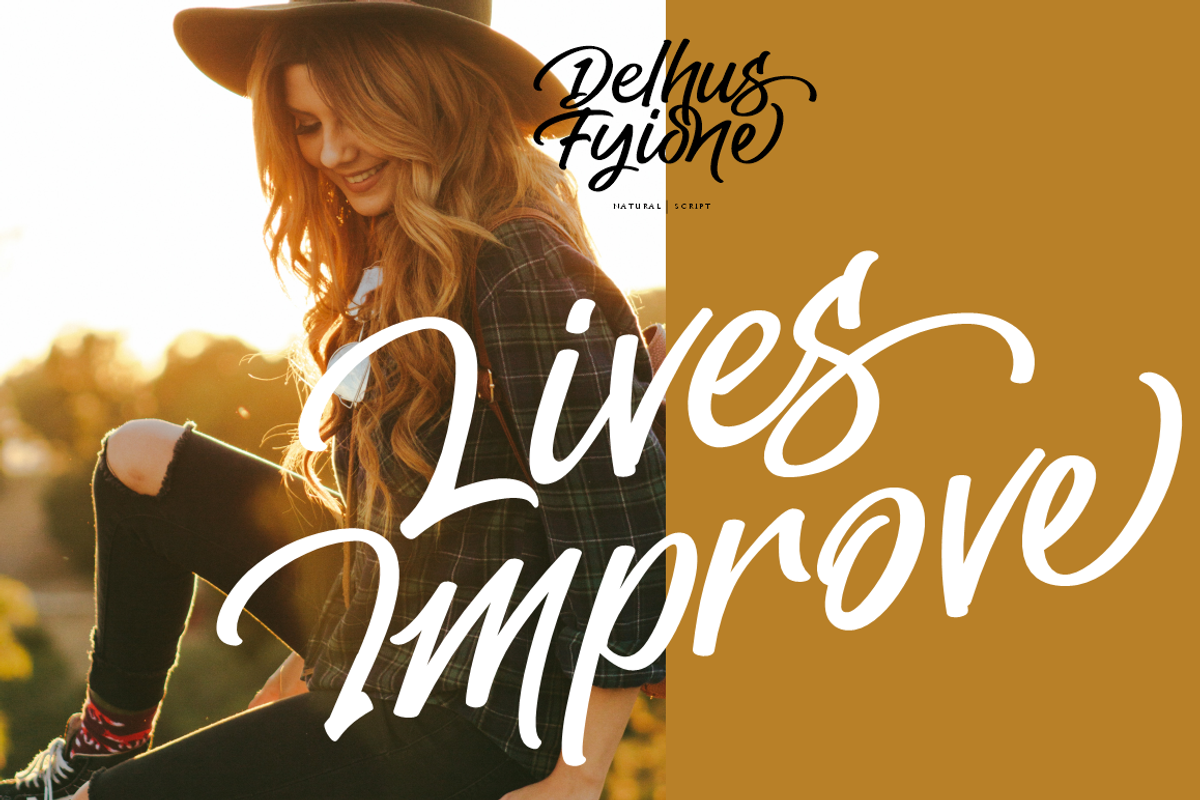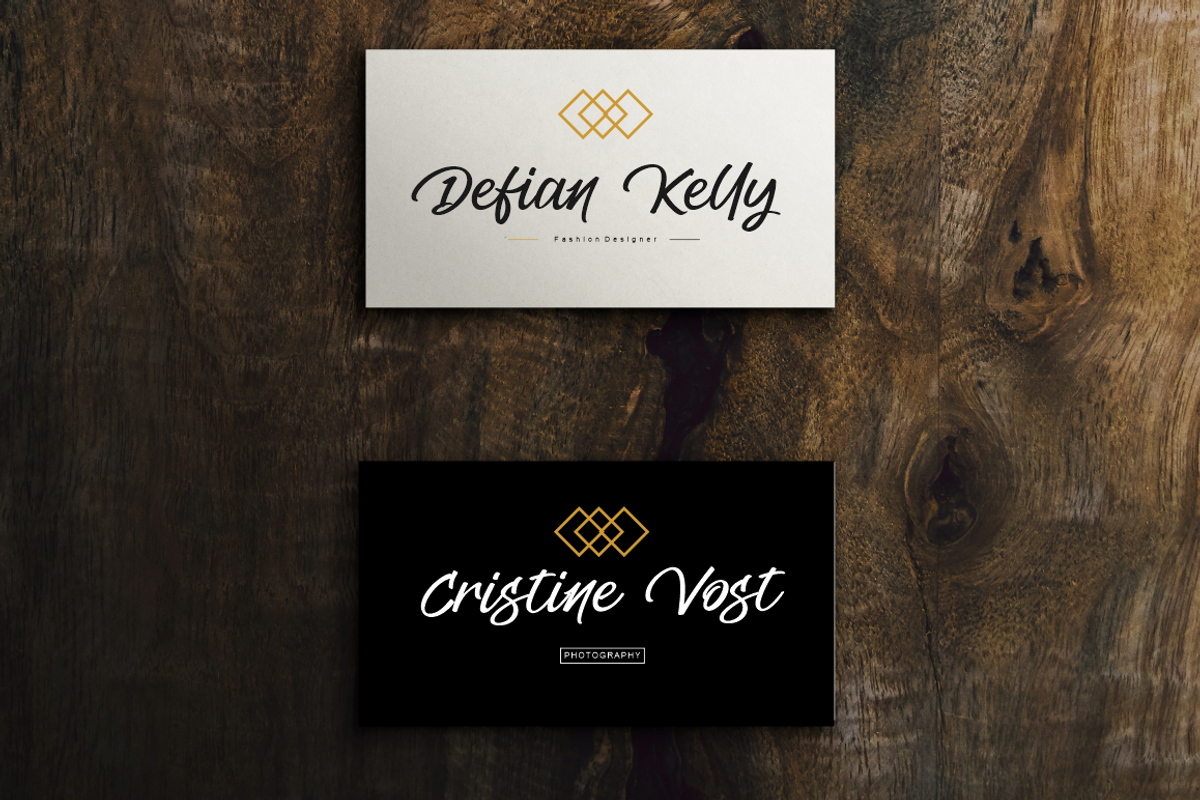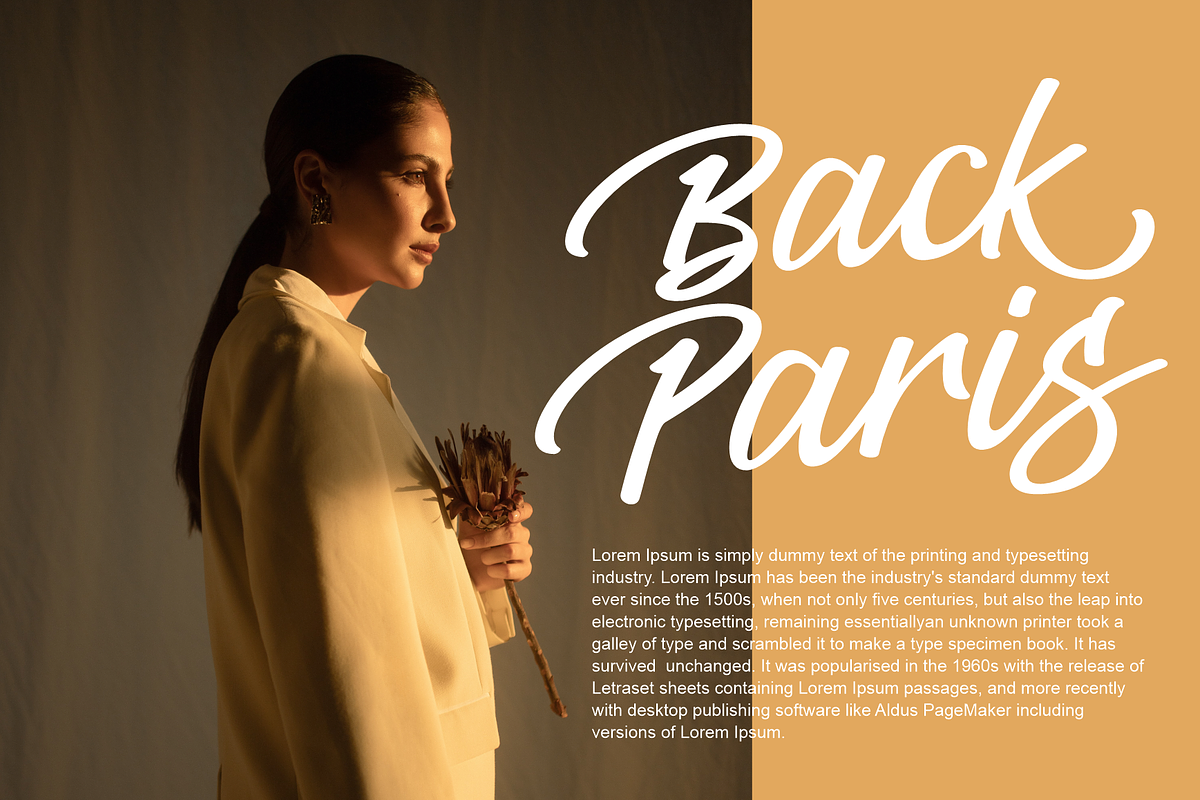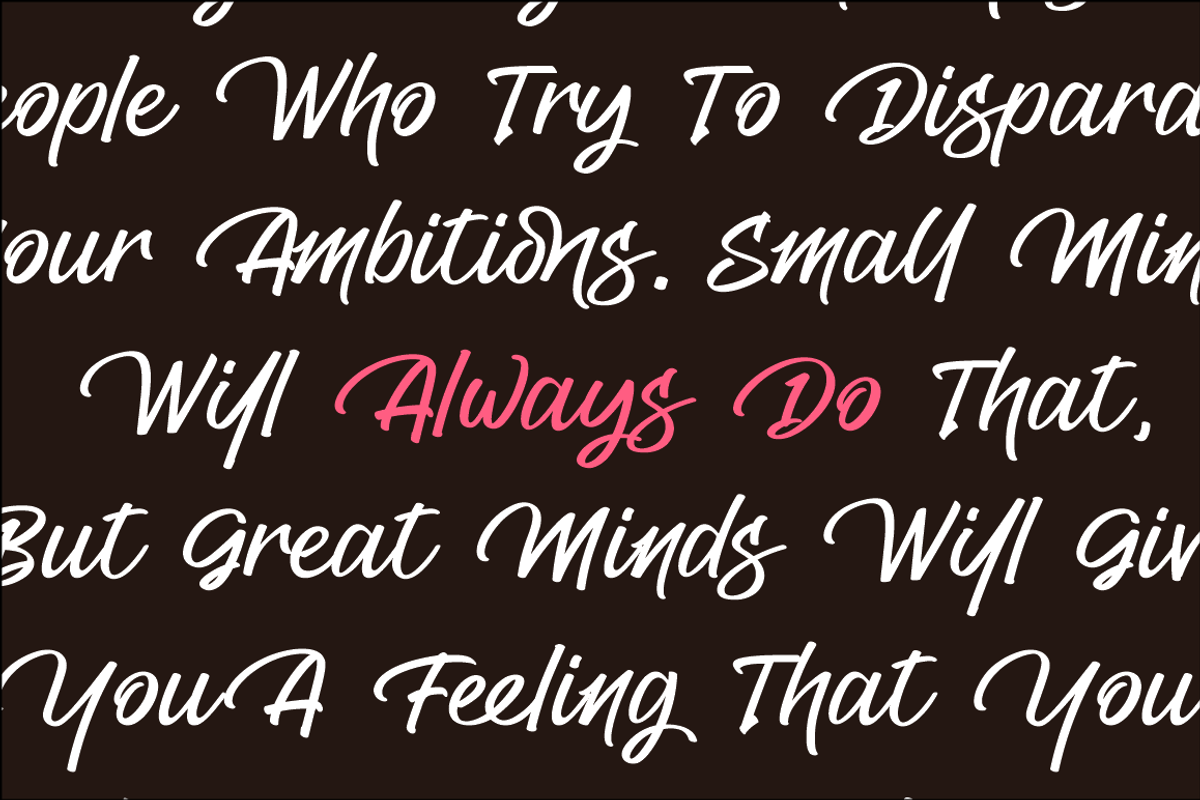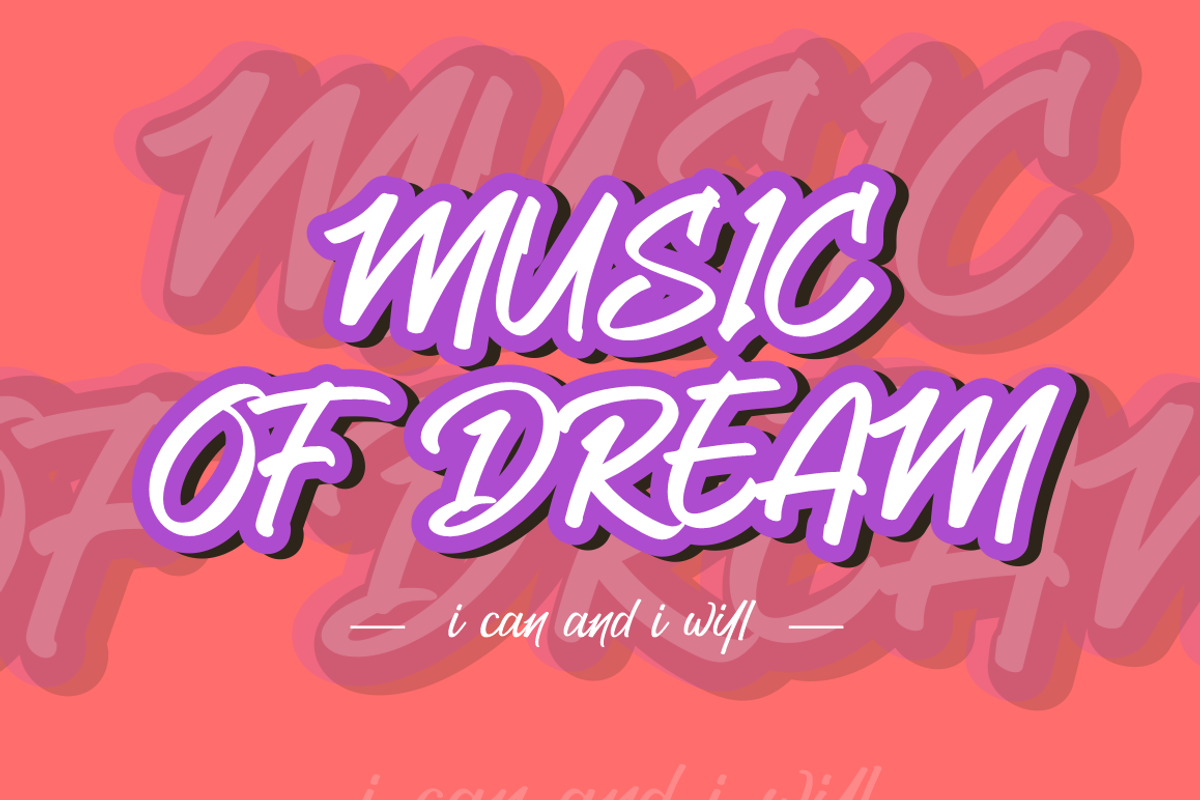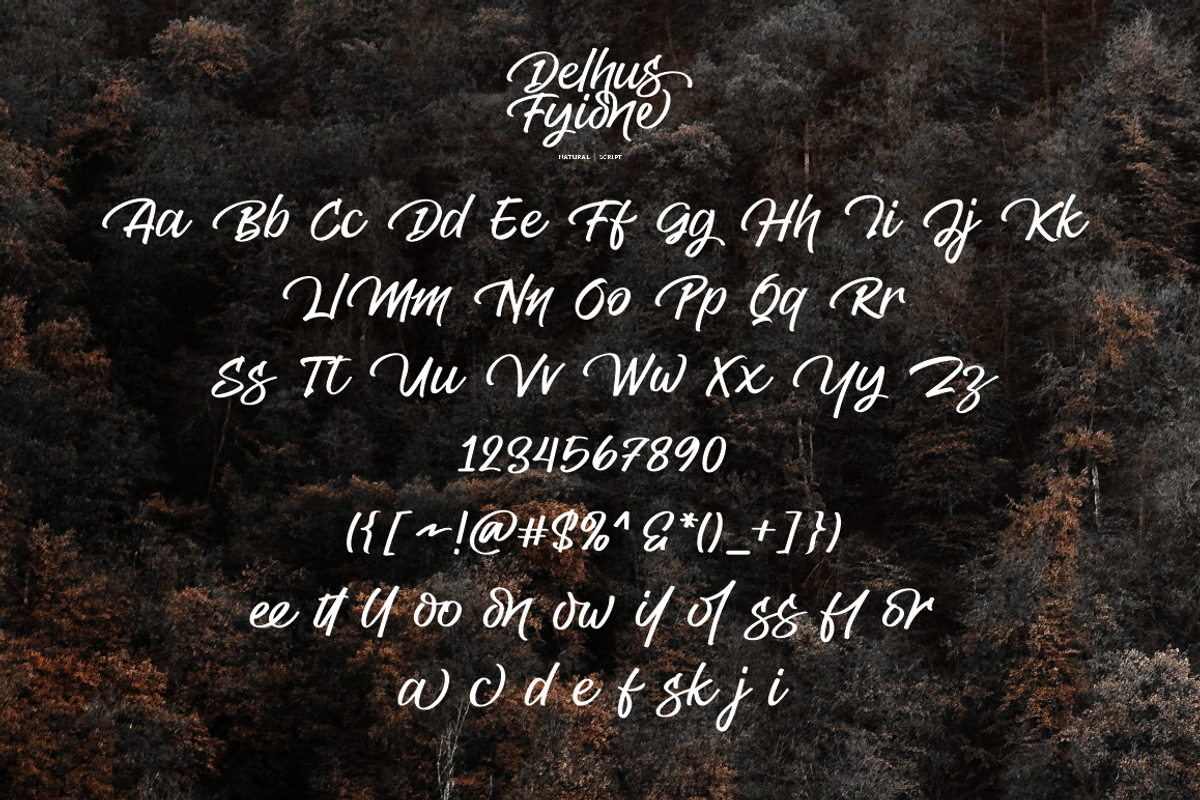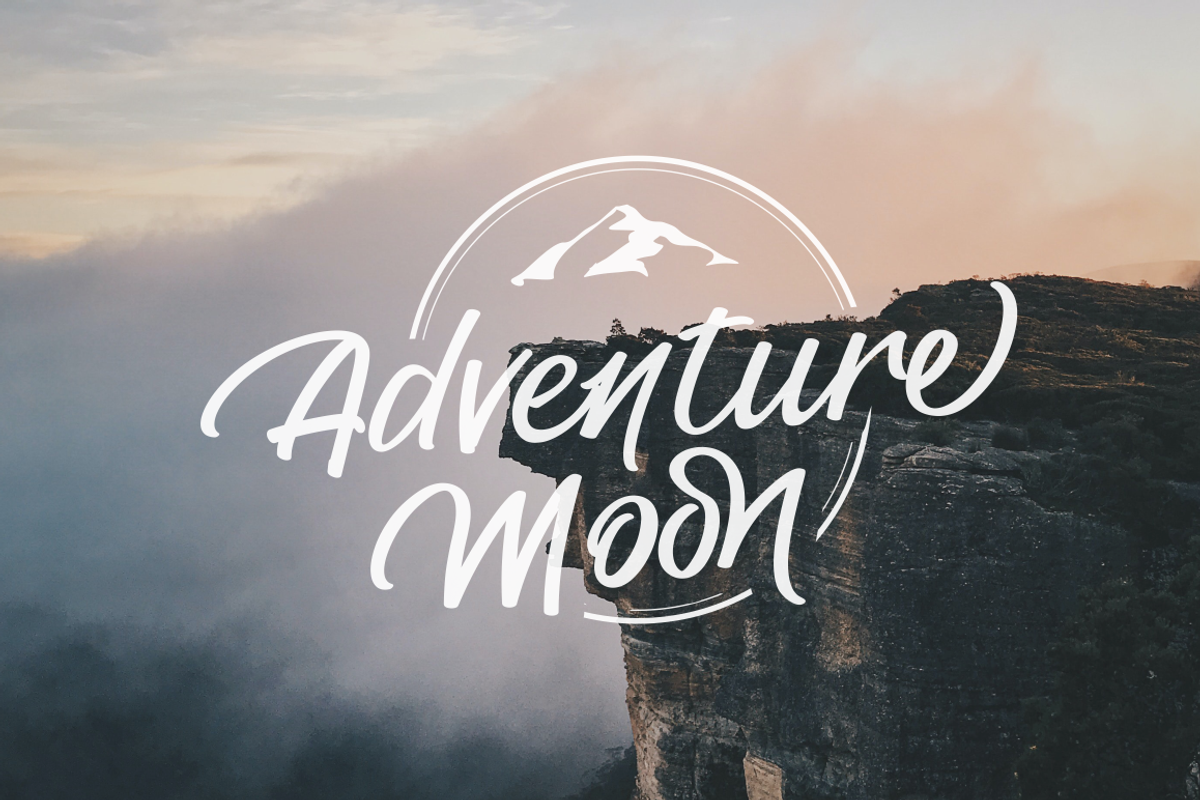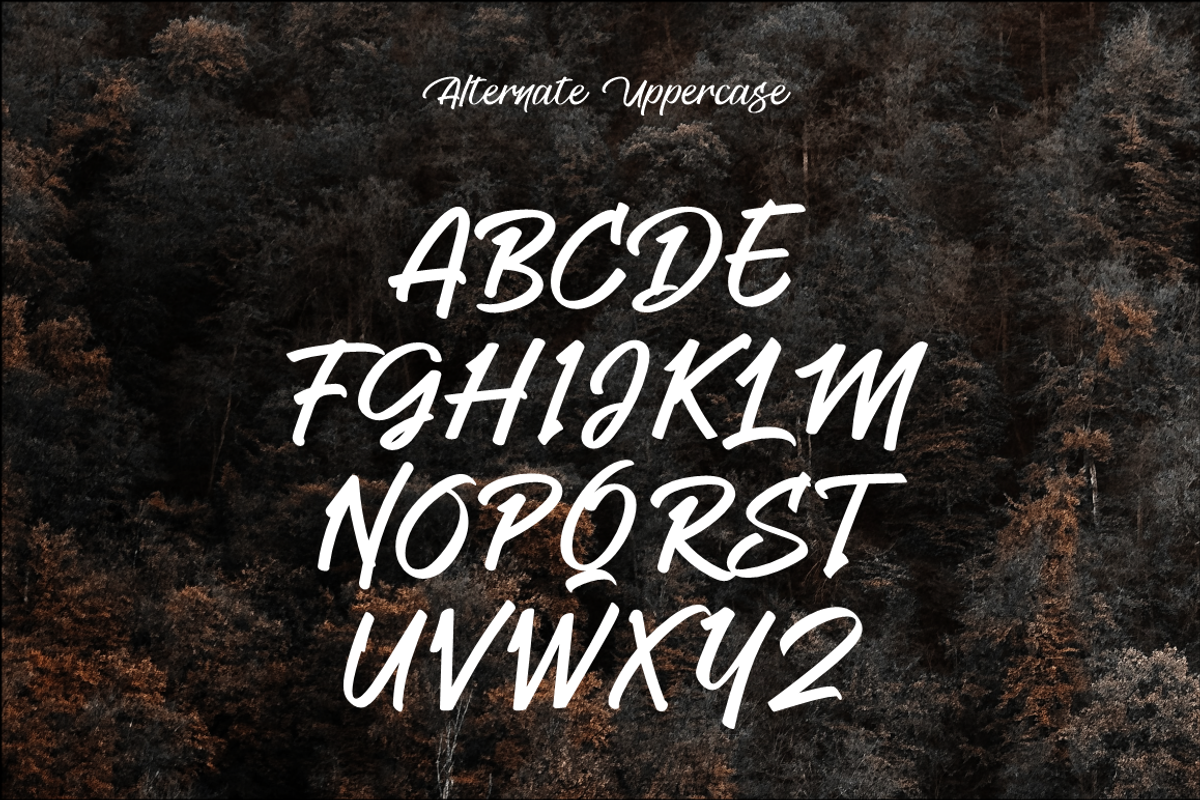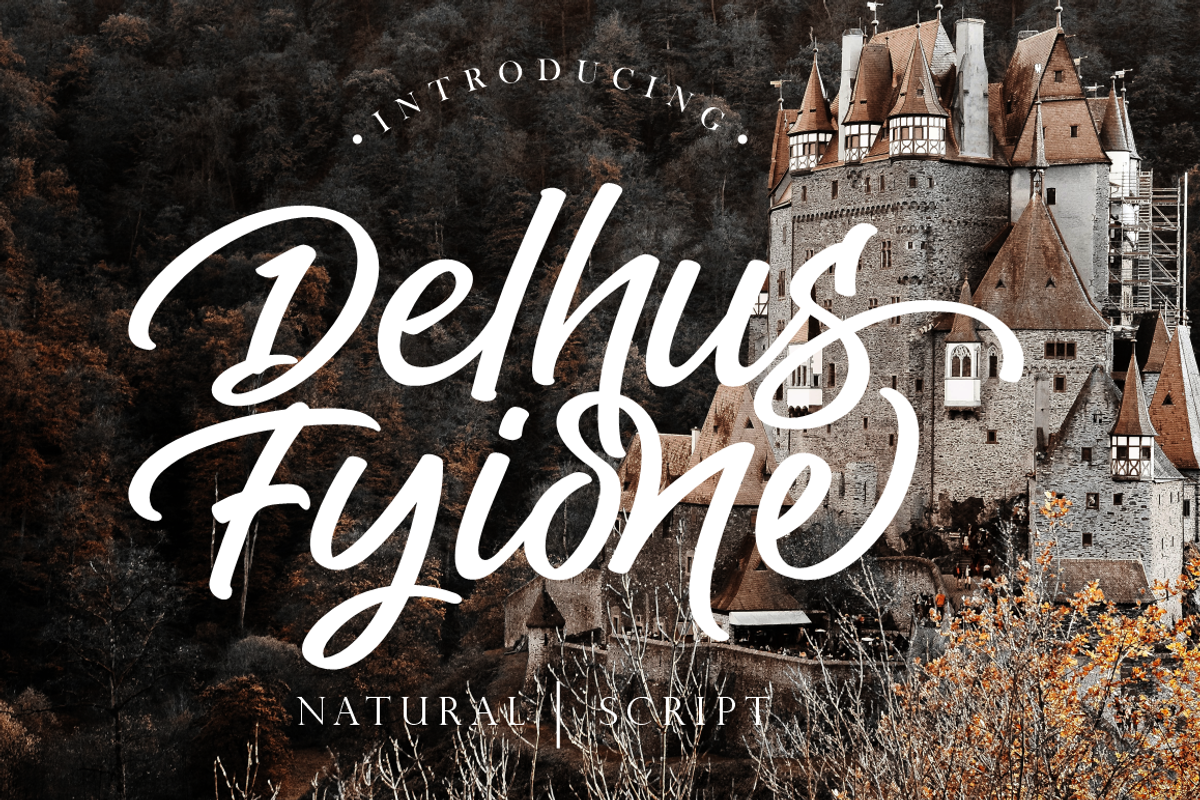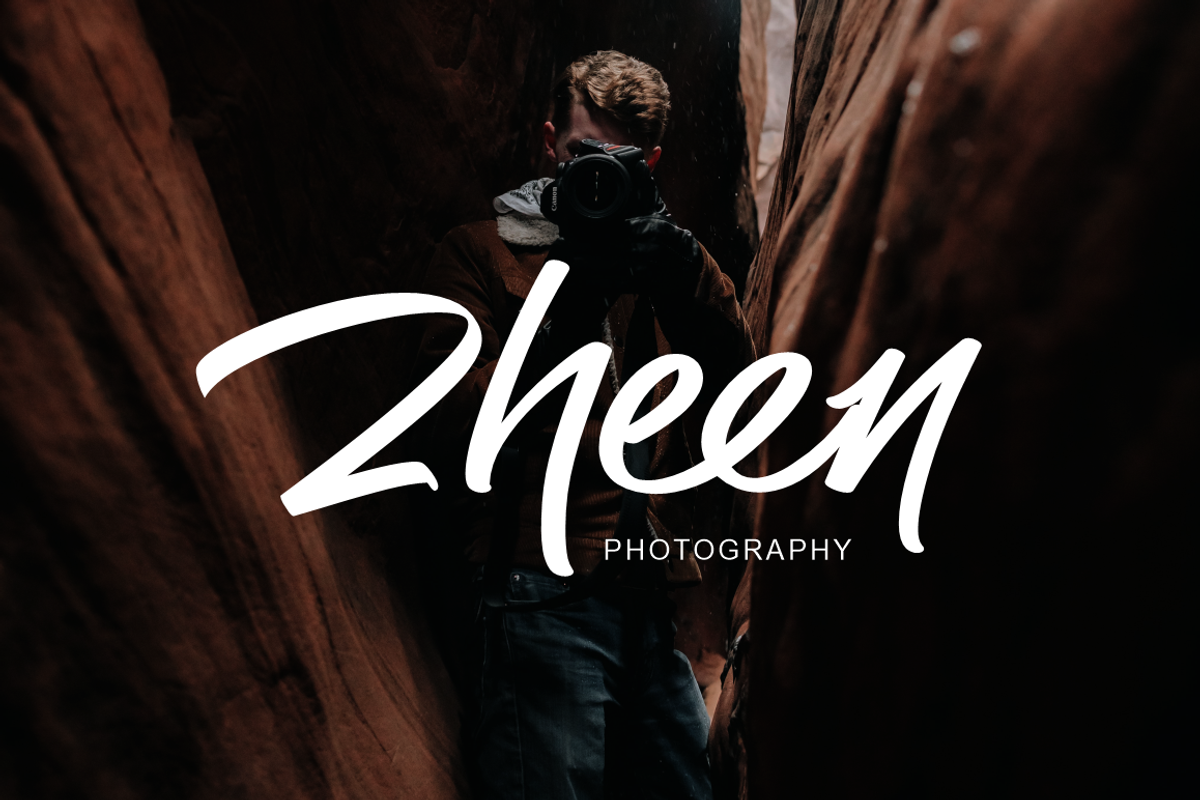
Delhus Fyione
Delhus Fyione is a font with a bold and natural character, complemented by an alternative uppercase. Delhus Fyione has a font ligature that will add a natural handwriting to your writing.
Delhus Fyione features:
- multi-lingual support
- alternate
- ligature